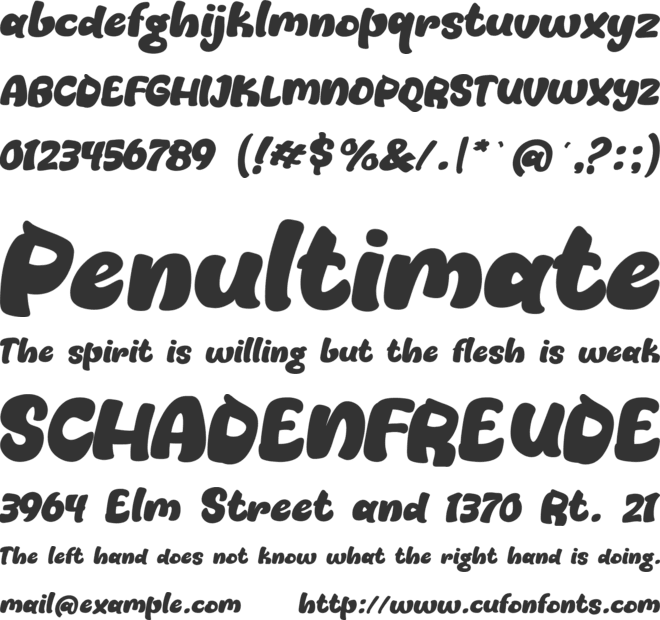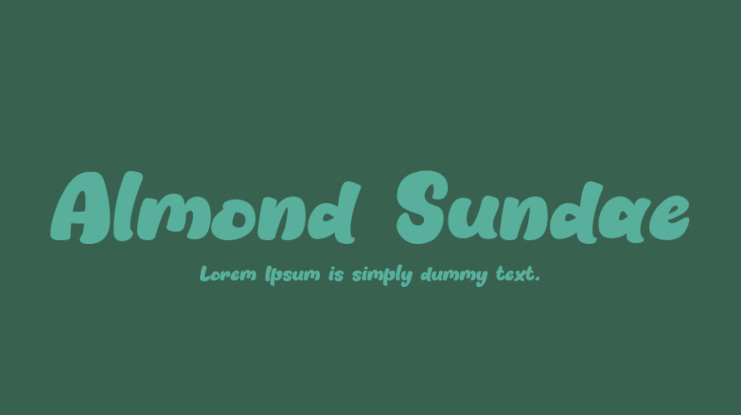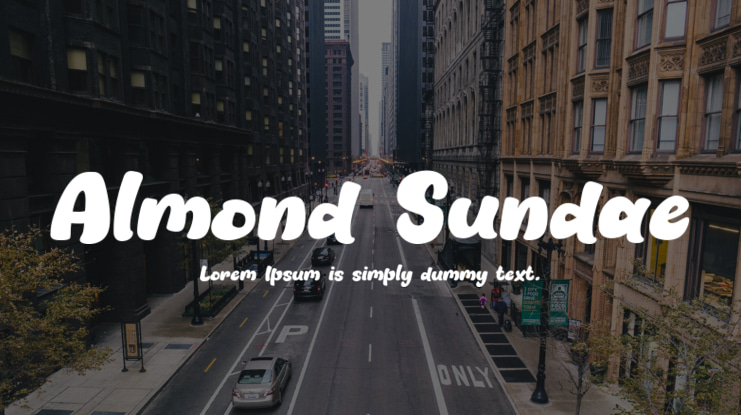
Almond Sundae Font
Almond Sundae is a charming and playful font that brings a touch of warmth and nostalgia to any design. Its unique letterforms feature soft curves and slightly irregular strokes, giving it a handcrafted, organic feel. Inspired by vintage signage and cozy Sunday mornings, Almond Sunday is perfect for branding, invitations, packaging, and creative projects that need a friendly, approachable look. The font balances elegance with a casual, handwritten aesthetic, making it versatile yet distinctive. With its delightful personality and smooth readability, Almond Sunday adds a sweet and whimsical charm to your designs, making every word feel inviting and heartfelt.